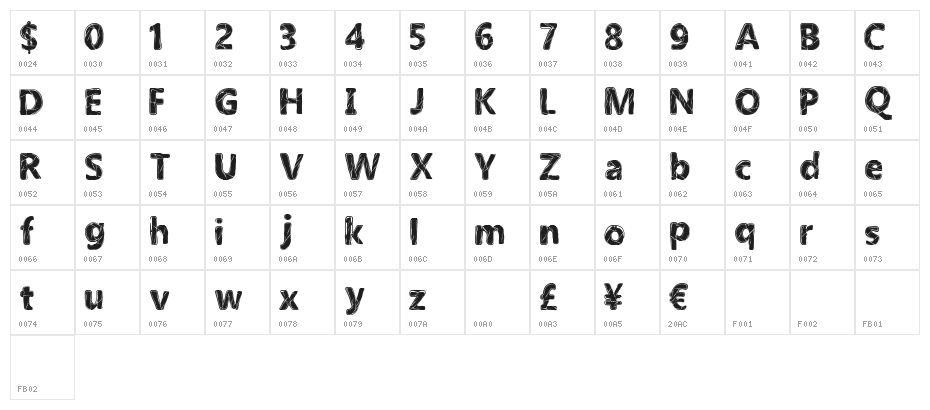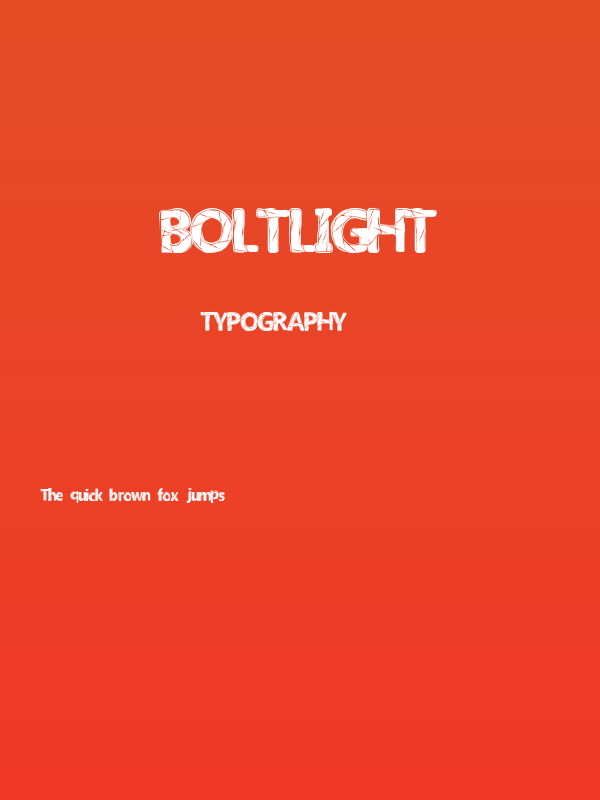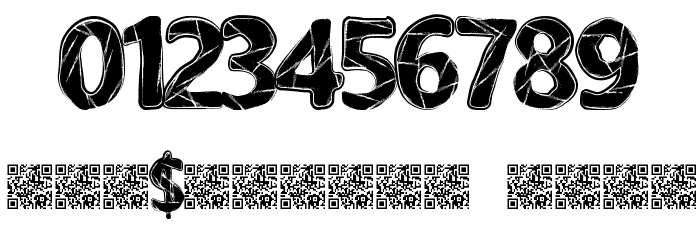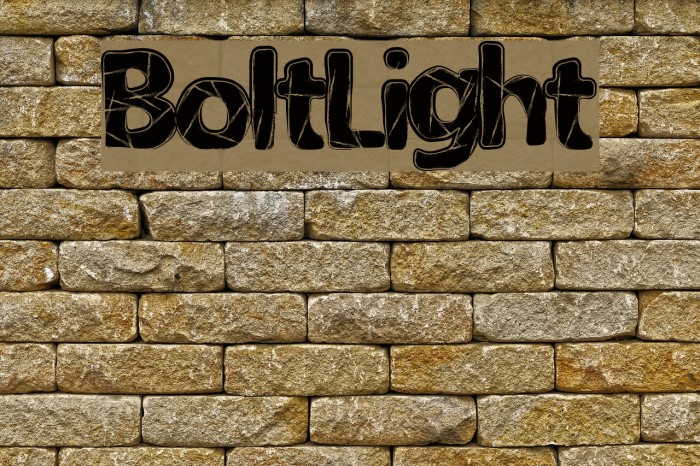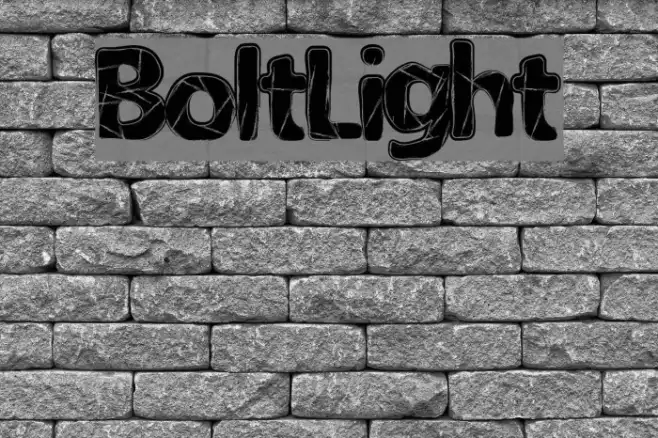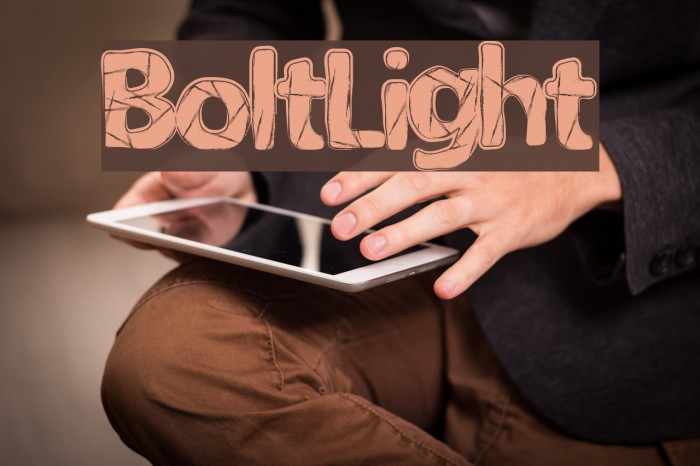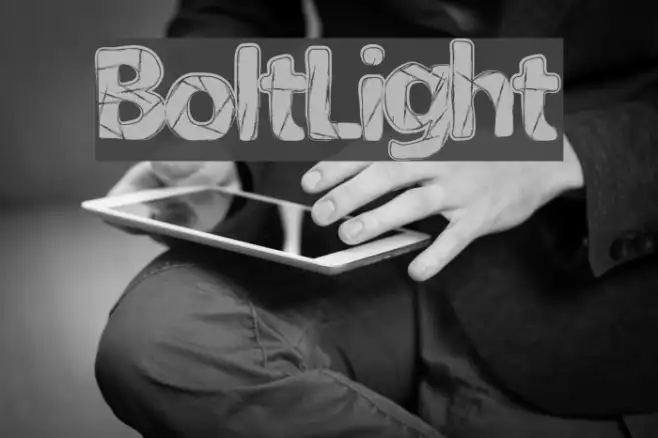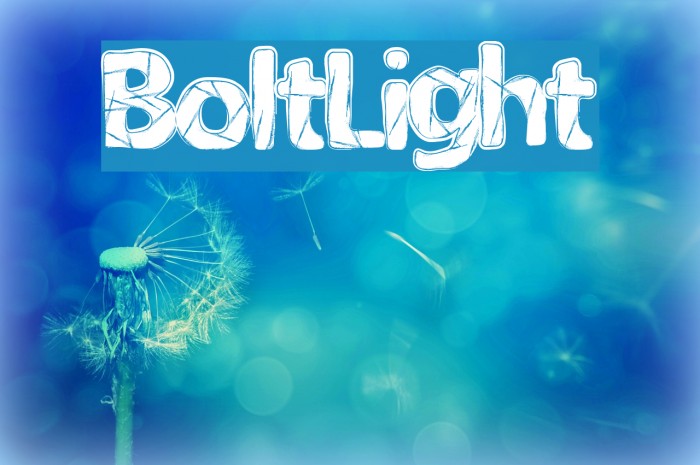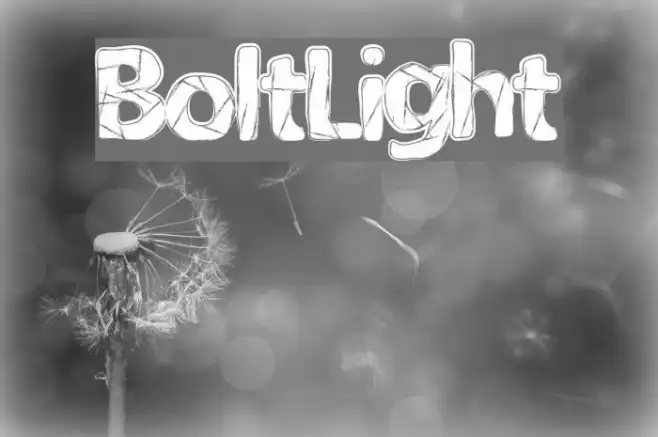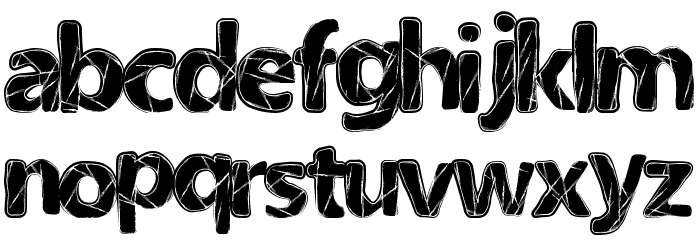
BoltLight Font
BoltLight Description
This font features a bold and dynamic style with a three-dimensional effect that gives it a unique and eye-catching appearance. The characters are designed with a thick, shadowed outline that creates a sense of depth and movement. The uppercase and lowercase letters maintain a consistent style, with rounded edges and a playful, energetic vibe. The numbers and special characters follow the same design principles, ensuring uniformity across the font. This font's distinctive look makes it ideal for projects that require a strong visual impact.
BOLTLIGHT UPPERCASE
BOLTLIGHT LOWERCASE
BOLTLIGHT OTHER CHARS
| Proposed Projects | Ideal for posters, headlines, logos, and any design that needs a bold and impactful statement. |